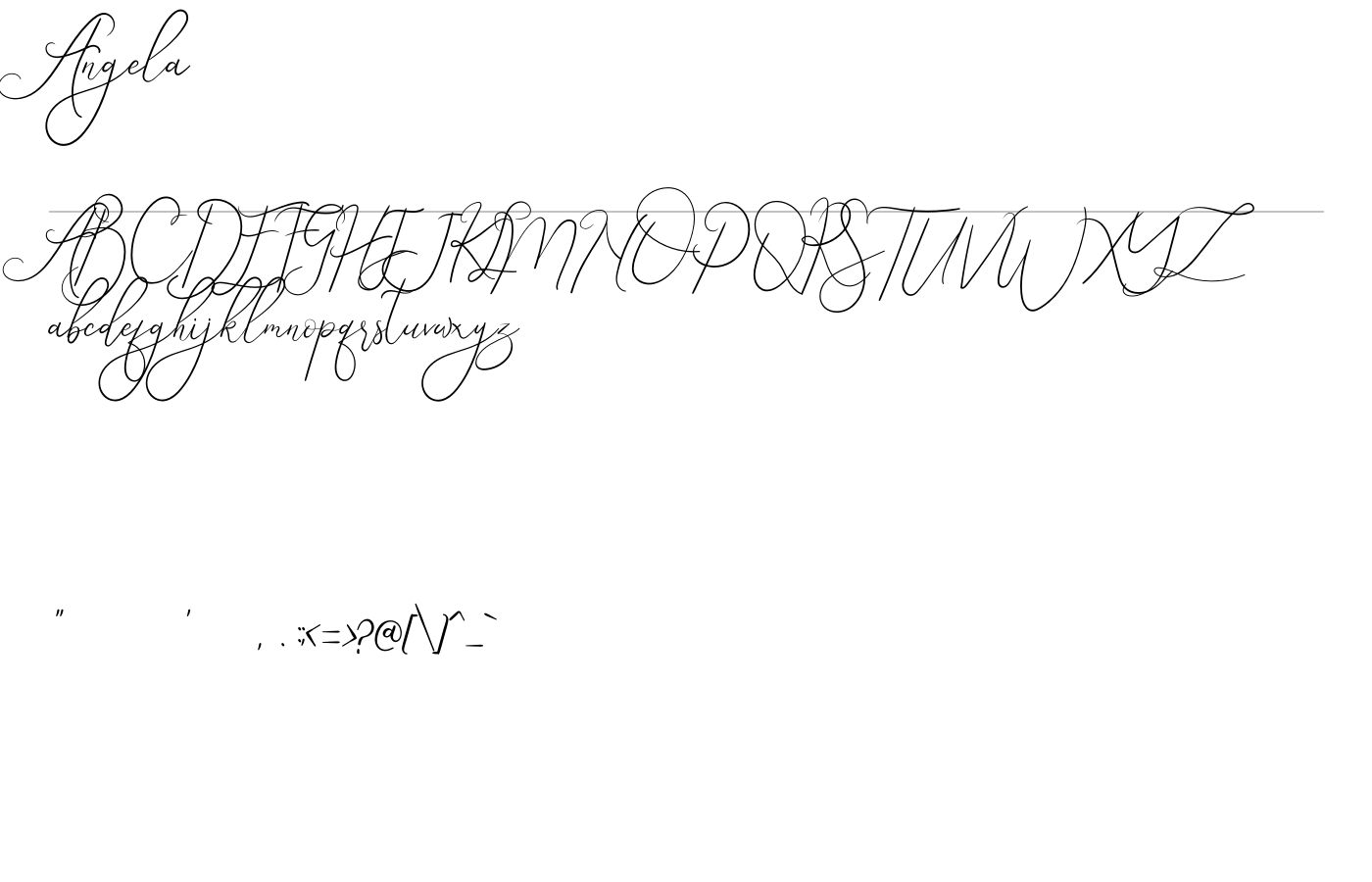
Angela is an elegant script font characterized by its delicate, flowing strokes and graceful, high-contrast lines. Its thin, calligraphic style with intricate swashes and loops gives it a refined and luxurious feel, making it perfect for sophisticated branding, wedding invitations, and upscale editorial projects where a touch of femininity and elegance is desired.
Angela Font
About Angela Font